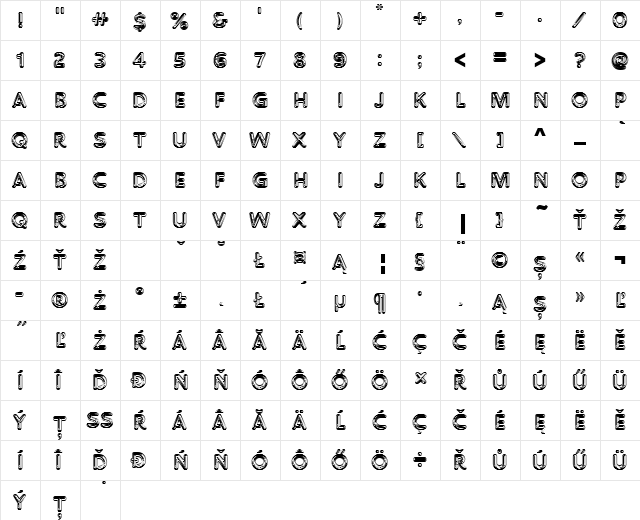
ChromiumOneDEE Regular
ChromiumOneDEE is a composed and adaptable typeface that performs quietly and consistently across a wide range of design contexts.